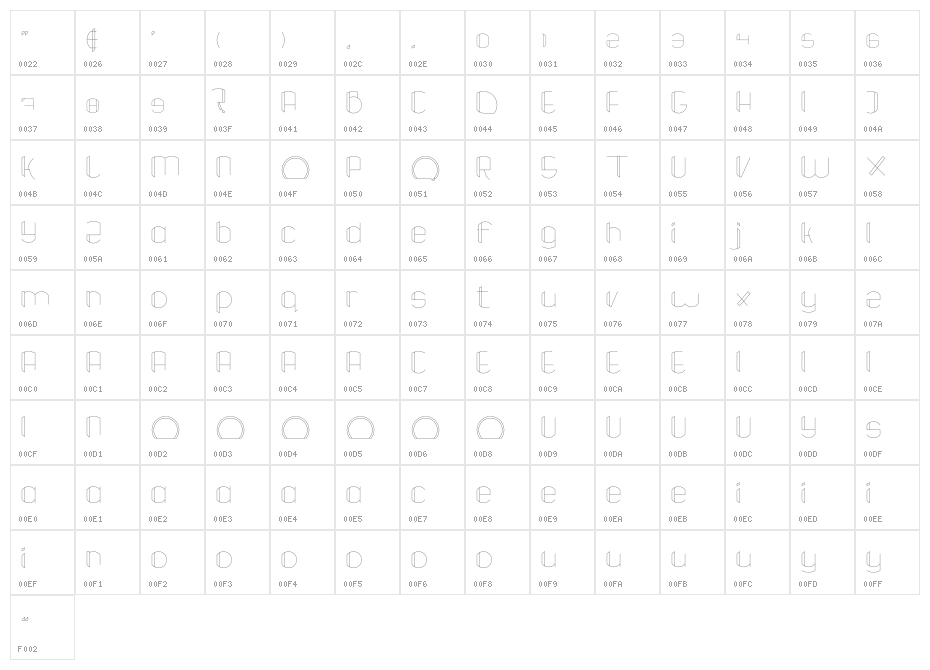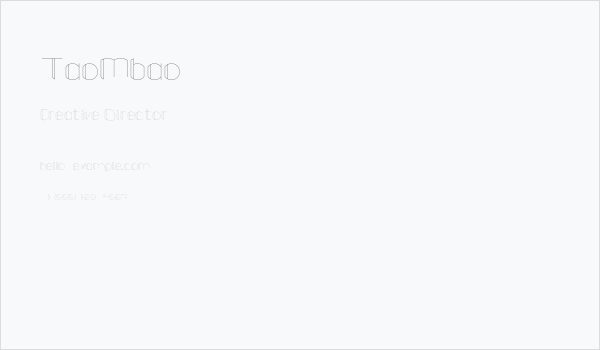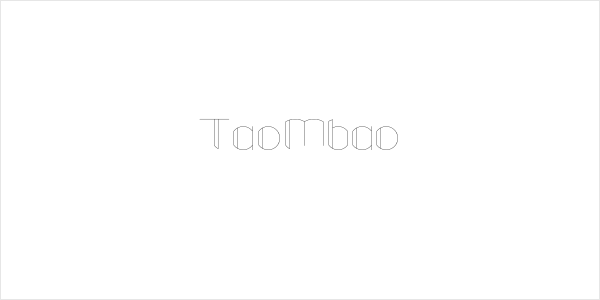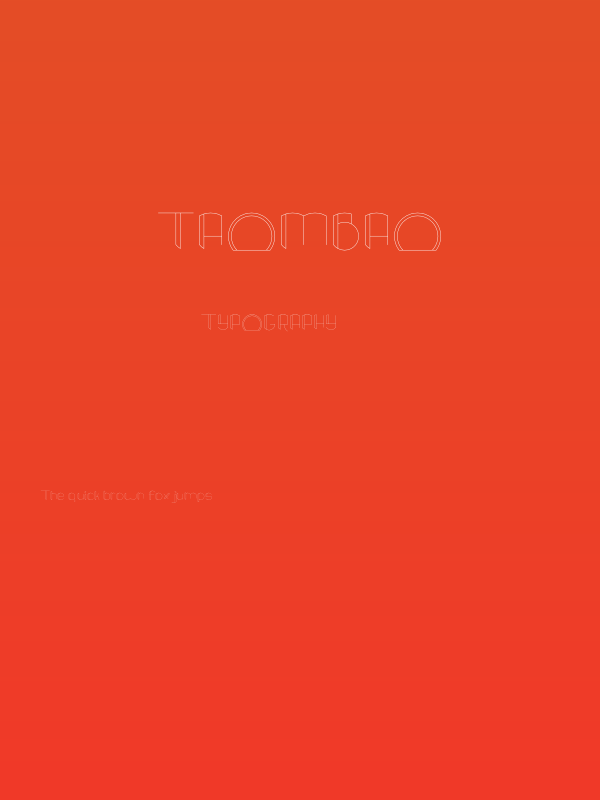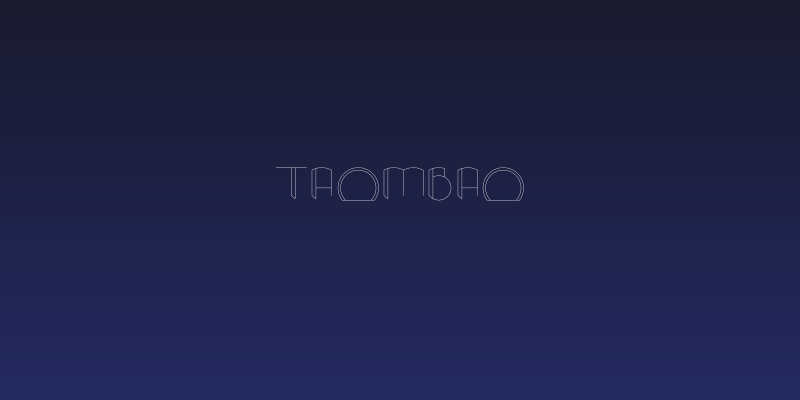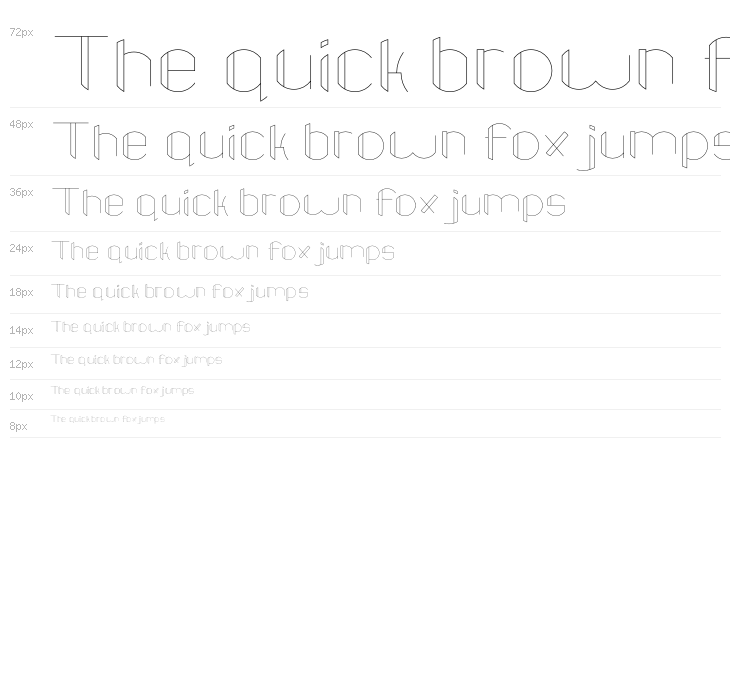
TaoMbao Font
TaoMbao Description
This font features a geometric and minimalist design, characterized by its thin lines and angular shapes. The uppercase and lowercase letters maintain a consistent style, with a focus on clean, straight edges and subtle curves. The numerals and special characters follow the same design principles, ensuring a cohesive look throughout. The font's simplicity and modern aesthetic make it suitable for a variety of design applications, offering a unique and contemporary feel.
| Use Case | Logos, Headlines, Digital interfaces |
| Proposed Projects | Ideal for modern branding, tech-related designs, minimalist posters, and digital interfaces. |